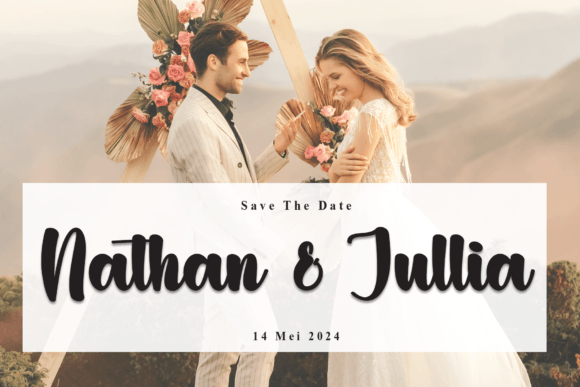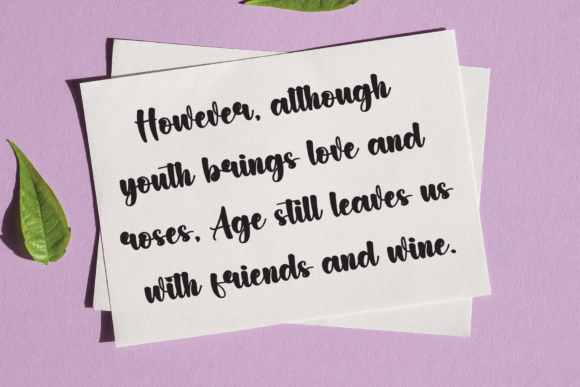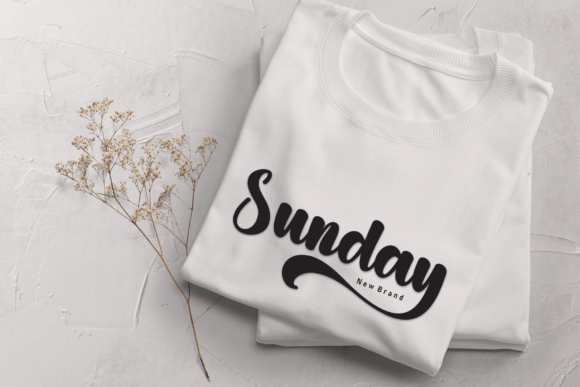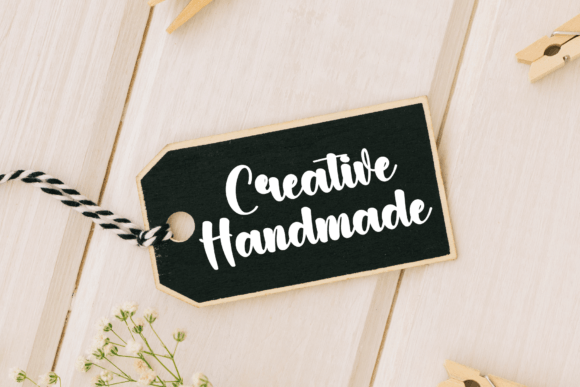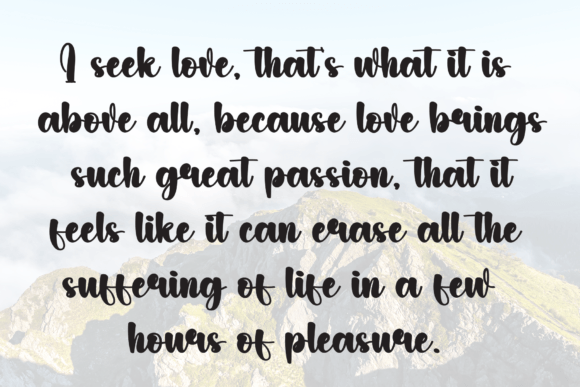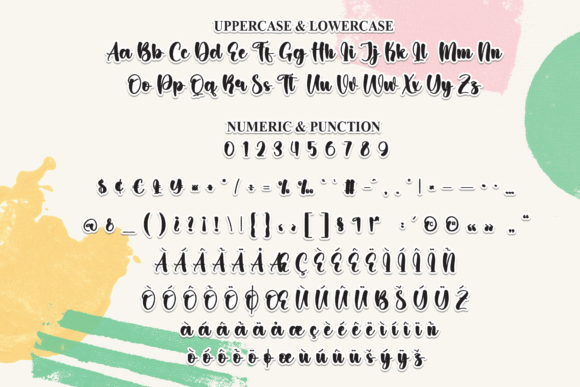
Introduction to Simple Quirky Font Font
Fonts play a crucial role in design, and the Simple Quirky Font font is a typeface that brings both character and versatility to any project. Whether you’re working on a branding project, a website, or a print design, the Simple Quirky Font font offers a unique style that can elevate your work.
Simple Quirky is a trendy handwritten font with a contemporary atmosphere and impeccable form, inspired by timeless classic calligraphy.
It will add elegance and class to any of your design projects .
The Simple Quirky Font font is more than just a typeface – it’s a design tool that helps you communicate your message with style and clarity. Its unique character set and versatile design make it suitable for a wide range of applications, from elegant invitations to bold headlines.
With its carefully crafted letterforms and balanced proportions, the Simple Quirky Font font ensures readability and visual appeal across all mediums.
The Simple Quirky Font font stands out with its unique design, exceptional readability, and versatility across various design applications.